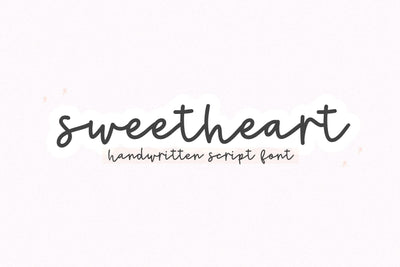
Sweetheart - Handwritten Script Font
Sweetheart is a handwritten script font.
This font is perfect for logos, farmhouse designs, svg files, wedding decor, invitations, branding, crafts and more!